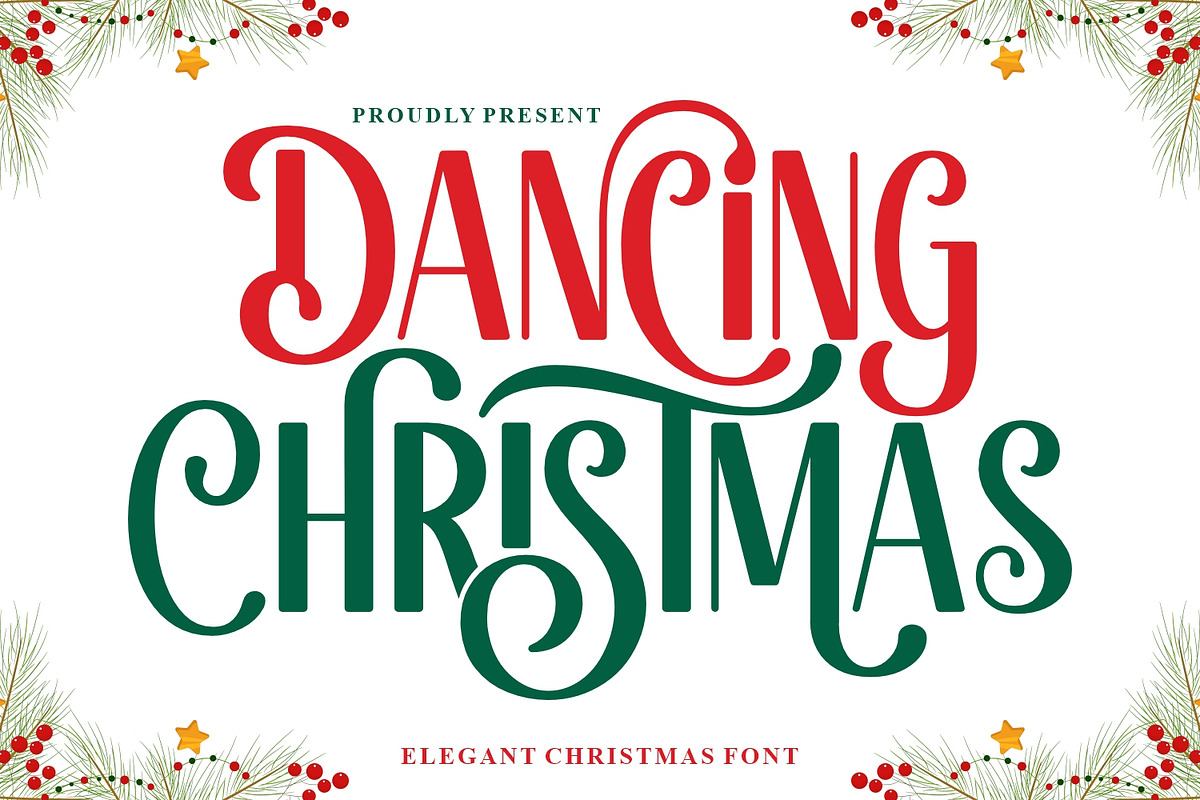
Dancing Christmas - Christmas Font Free Download
Dancing Christmas – Christmas Font Free Download
Dancing Christmas – Christmas Font Free Download is a joyful and festive typeface designed to bring the magic of the holidays to your creative projects. With its playful letterforms, decorative swirls, and cheerful vibe, this font is perfect for Christmas cards, holiday invitations, gift tags, seasonal product packaging, and cozy winter quotes.
The font captures the whimsical spirit of the season, with a handwritten style that feels warm and full of charm. It often includes fun extras like snowflakes or star-like accents, adding an extra layer of holiday cheer to your typography.